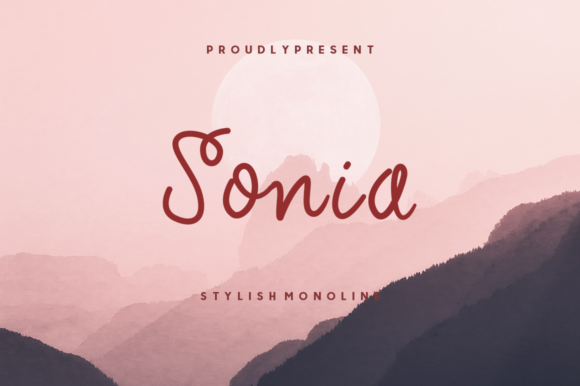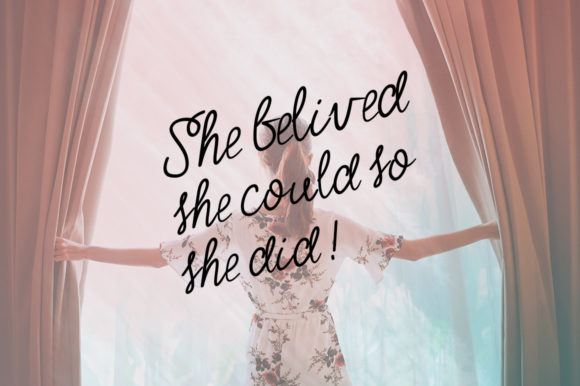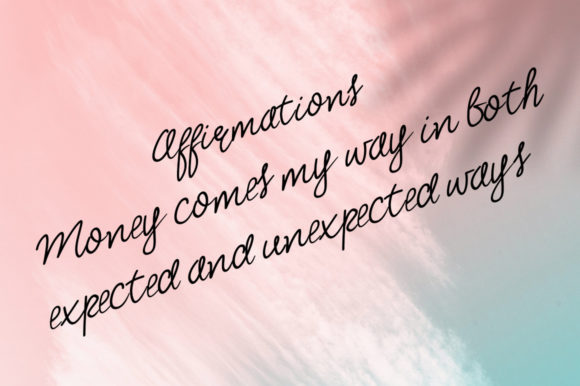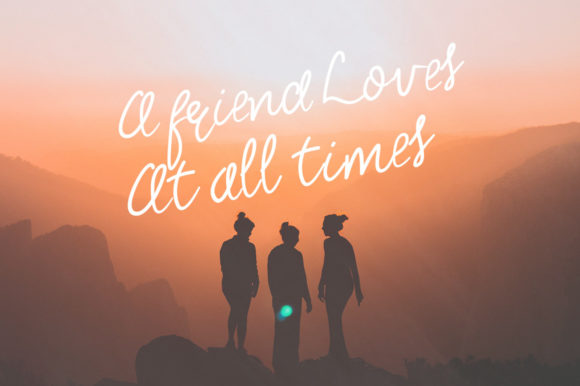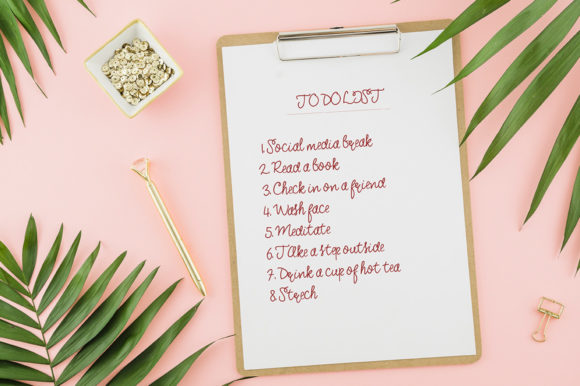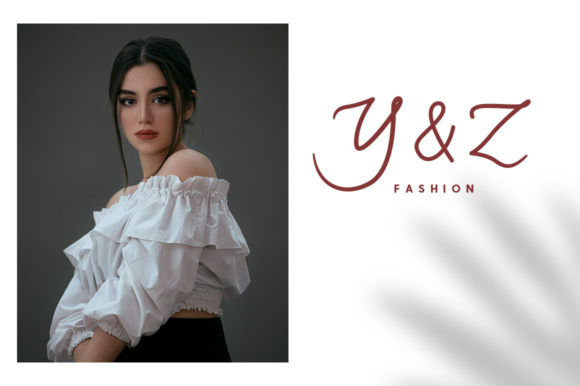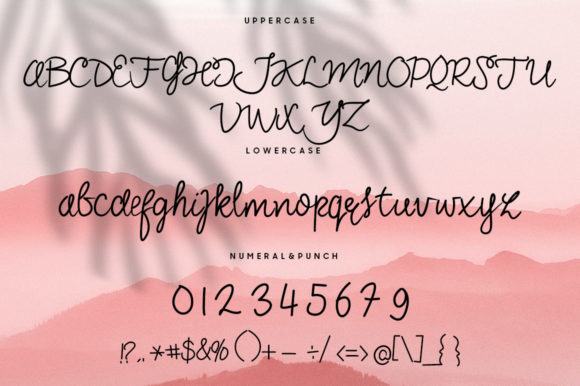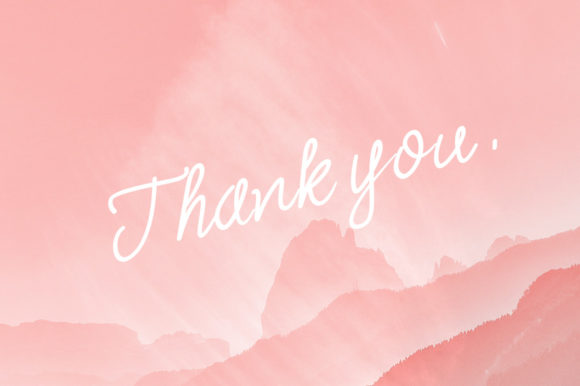
Sonia Script Font
About Sonia Script Font
Sonia Script is a simple, clean and adaptable handwritten font. Fall in love with its incredibly versatile style and use it to create spectacular designs!